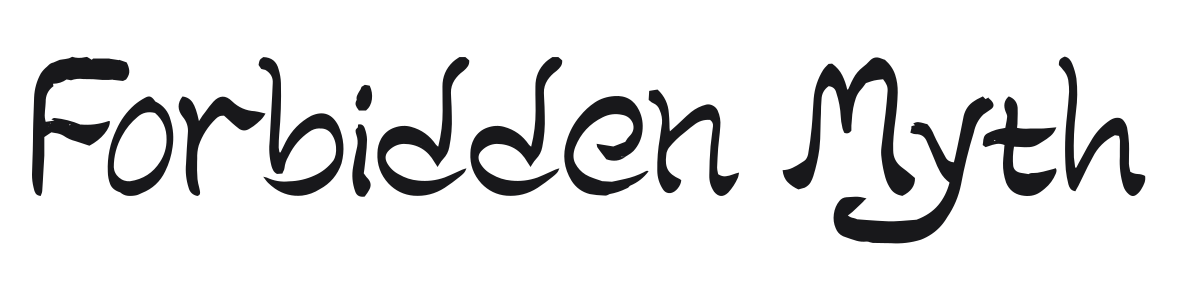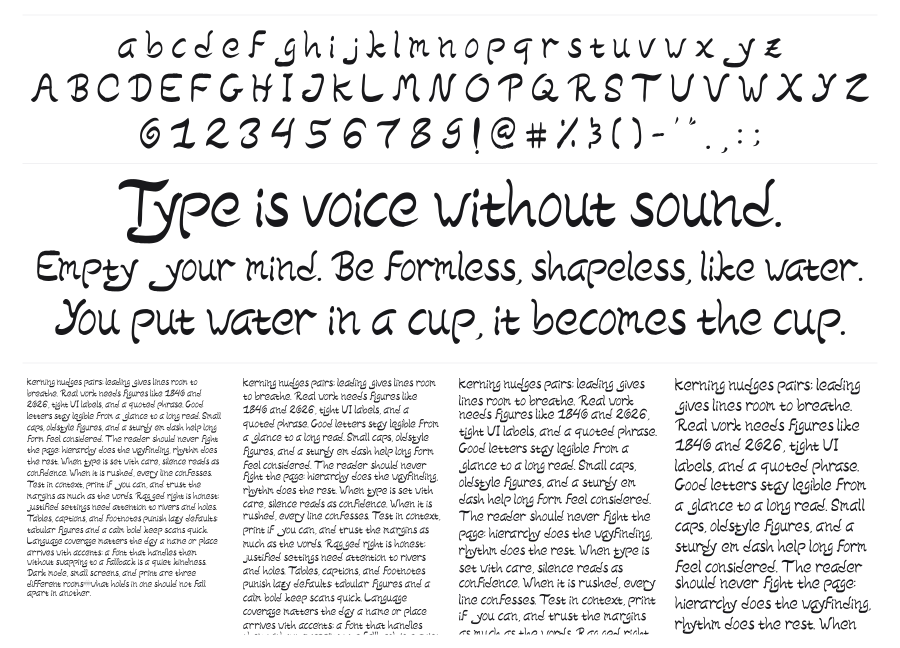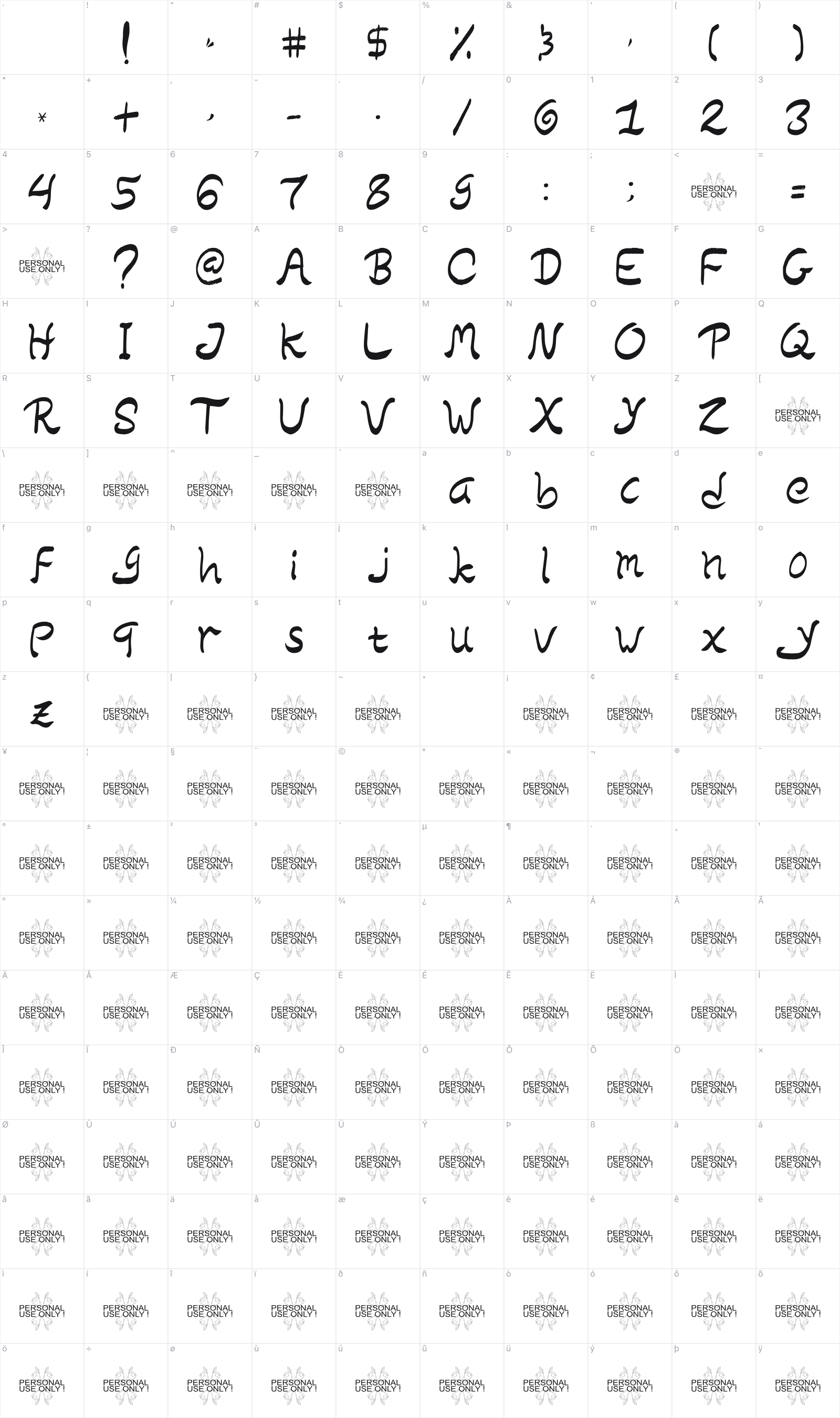
Forbidden Myth
Forbidden Myth is a casual hand-drawn font with loose, organic strokes and a spontaneous marker-written feel. The irregular baseline and rounded terminals give it a warm, approachable character that reads as genuinely handcrafted rather than mechanical. It works well for titles, children's content, and any context where a relaxed, personal touch matters.